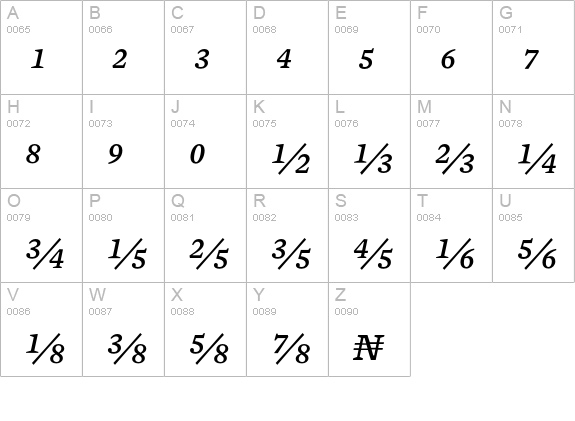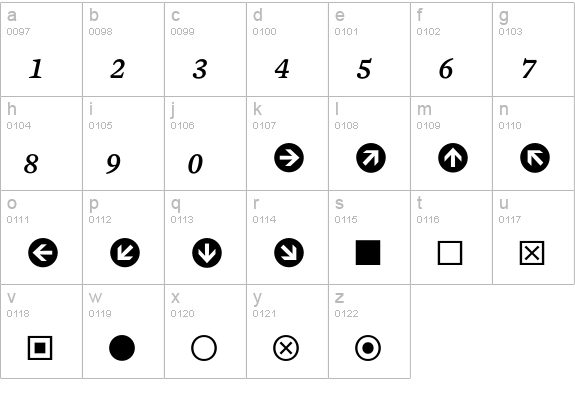
Mercury Numeric G4 Italic Font Details
Mercury Numeric G4 Italic is a distinctive, italic variant in the Mercury typeface family \xE2\x80\x94 well suited to design and typography projects.
Mercury Numeric G4 Italic font is a sleek and modern typeface that exudes sophistication and elegance. With its clean lines and stylish curves, this font is perfect for adding a touch of class to any design project. The italic style of the font adds a sense of dynamism and movement, making it ideal for creating eye-catching headings and captions. What sets Mercury Numeric G4 Italic font apart is that it is available for free download at FontsMarket.com. This means that you can easily access this high-quality font without having to spend a penny. Whether you're working on a personal project or a professional design, Mercury Numeric G4 Italic font is sure to elevate your work to the next level. Download it today and see the difference it can make in your designs!